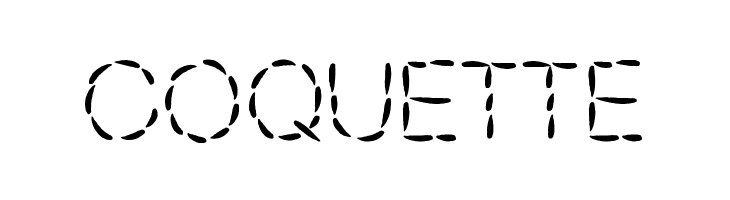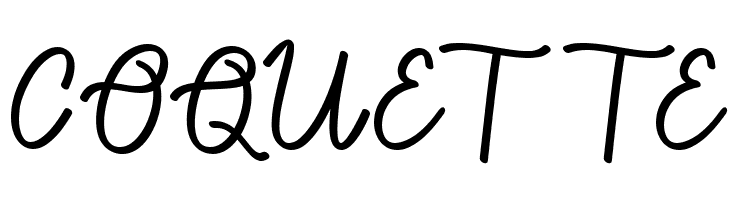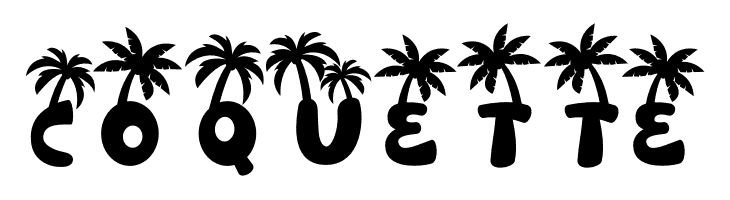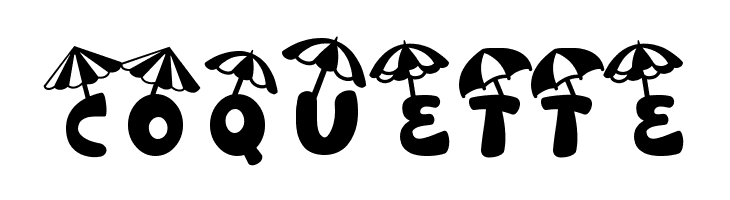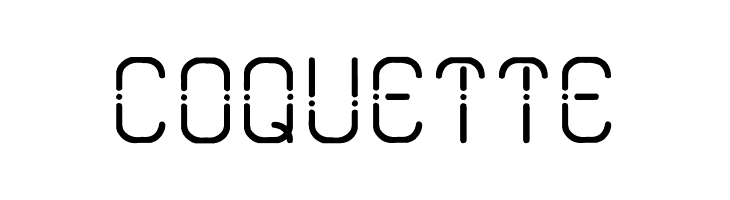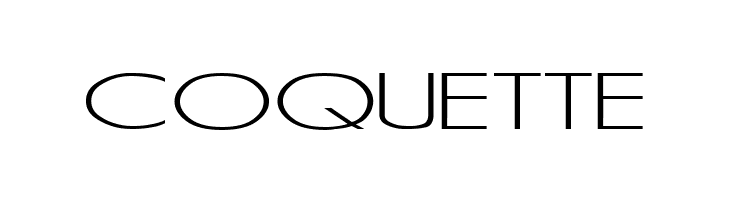
A flowing, cursive script font with a handwritten style.
A playful, palm tree-topped decorative font with a tropical vibe.
A playful, umbrella-themed decorative font with bold, rounded characters.
A modern, clean sans-serif font with consistent stroke width and excellent readability.
A bold, distressed font with a grunge texture and irregular edges.
A modern, decorative font with a cut-out, stencil-like design.
A bold, modern sans-serif font with a condensed and geometric style.
A bold, modern sans-serif font with a condensed and impactful style.